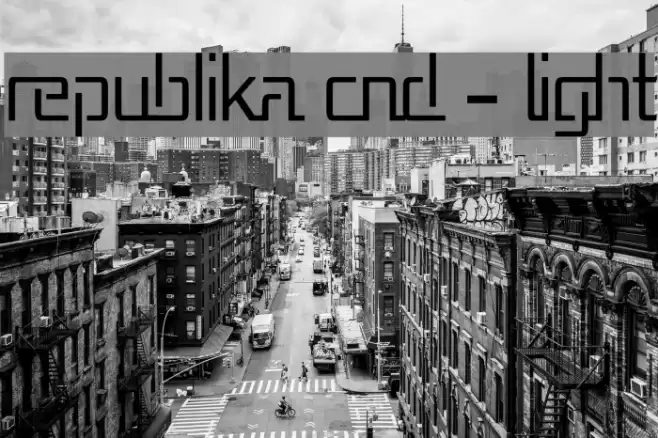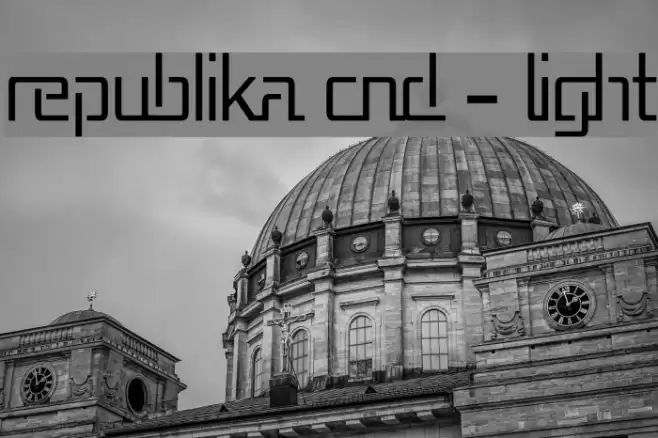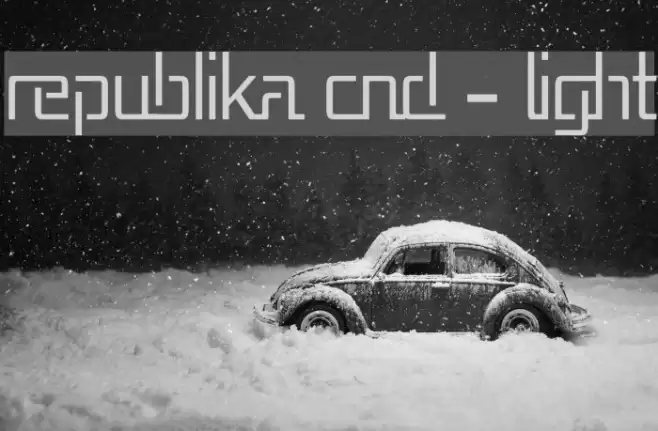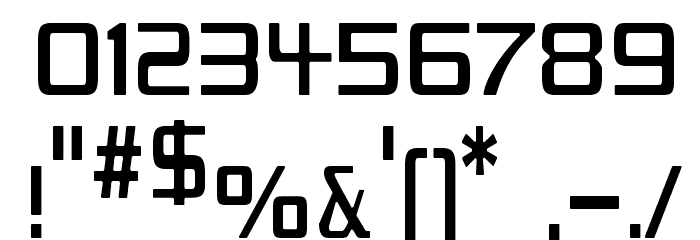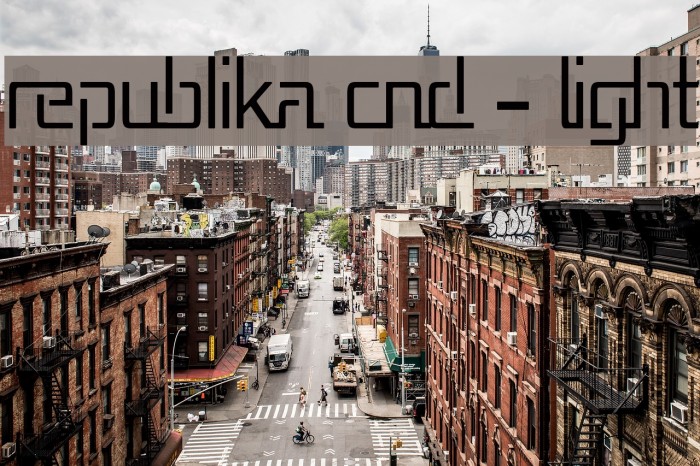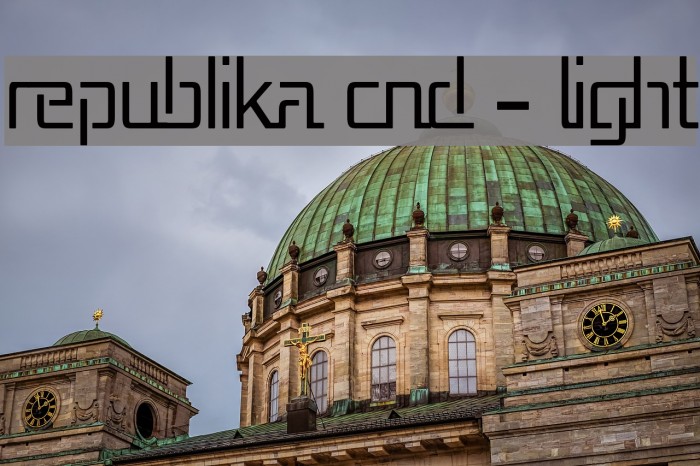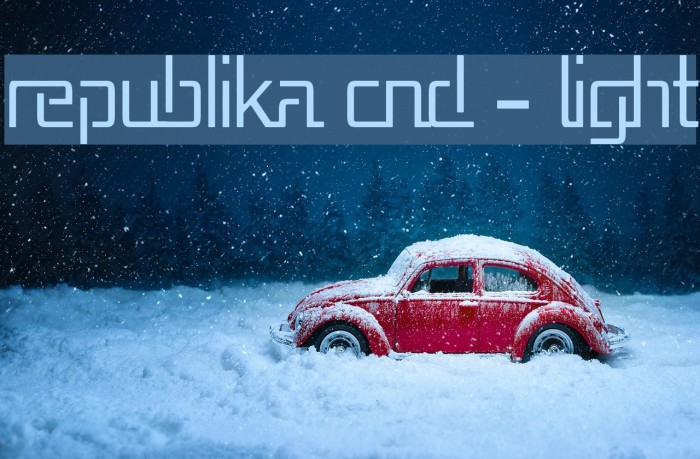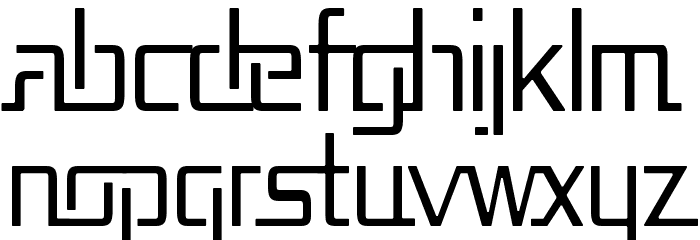
Republika Cnd - Light Font
Republika Cnd - Light Description
This font features a modern, geometric design with a condensed structure. The characters are composed of straight lines and sharp angles, giving it a futuristic and technical appearance. The uppercase and lowercase letters maintain a consistent height, contributing to its uniform look. The numerals and special characters follow the same design principles, ensuring a cohesive style throughout. Its clean lines and minimalistic approach make it suitable for contemporary design projects.
A modern, geometric, and condensed font with a futuristic style from Uncategorized fonts.
- Proposed Projects: Ideal for technology branding, modern posters, digital interfaces, and futuristic-themed projects.
- Use Case: Headlines, Logos, Digital interfaces